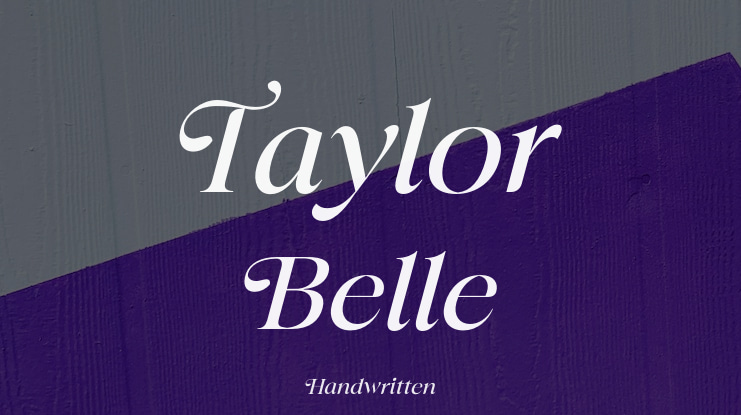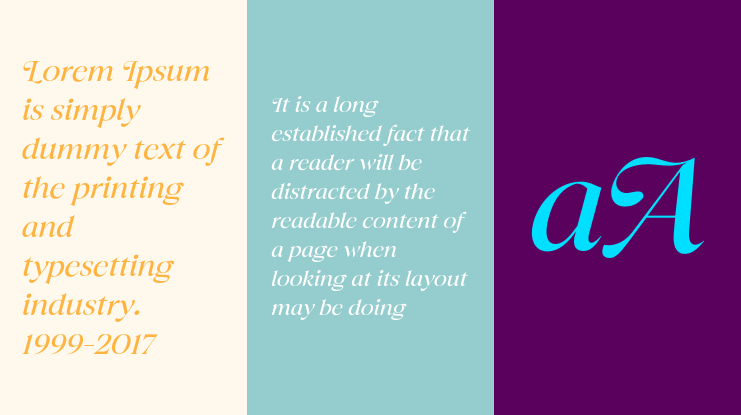
Experience Taylor Belle Regular, the free version of this elegant and
feminine serif display font. Perfect for adding a touch of luxury to
branding, invitations, or creative projects. Supports 90+ languages and
works seamlessly with standard software.